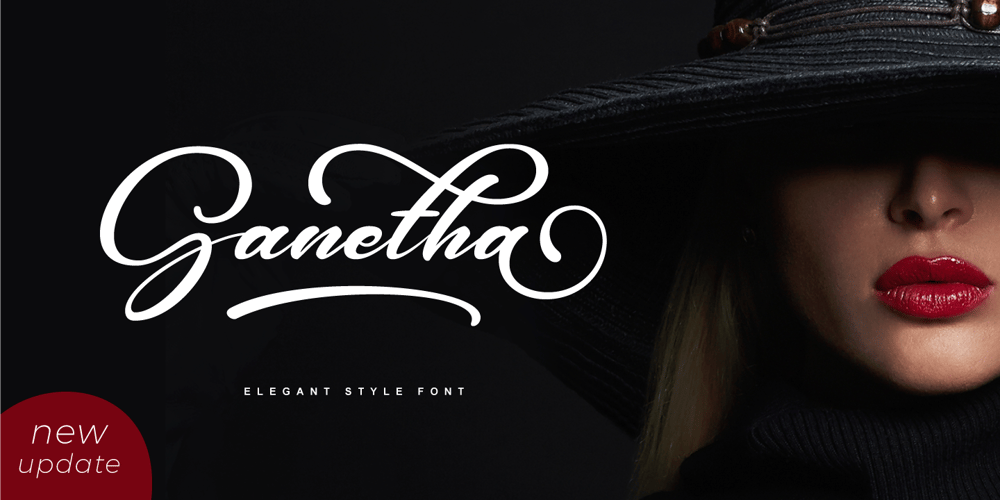
Ganetha
Ganetha font
Ganetha Font Family was designed by Akhmad Reza Fauzi and published by Grezline Studio. Ganetha contains 2 styles and family package options. Ganetha is a script font that has a very nice elegant and luxurious feels. This font is perfectly suit for logo typography but it can also used for other branding needs such as magazine or book cover, website header, product packaging, invitation, quotes, t-shirt design, label poster and more.Feature :- A lot of Alternates ( With a Total of 820+ Glyphs )- Multilingual Language – Works on PC & Mac- Simple installations- Accessible in the Adobe Illustrator, Adobe Photoshop, Adobe InDesign, even works on Microsoft Word.